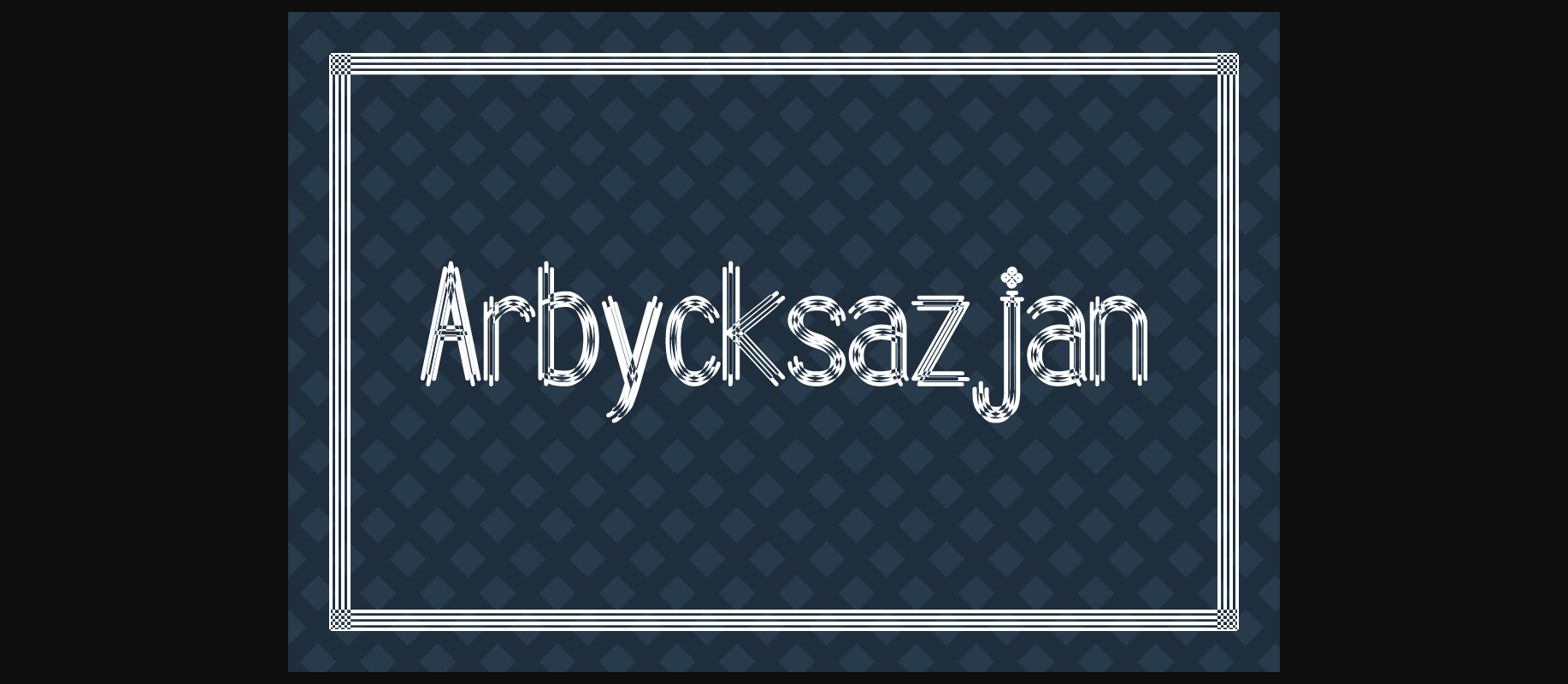
Arbycksazjan Font
About Arbycksazjan Font
Arbycksazjan is a decorative font, suitable for a wide range of uses in both digital and print applications. This font is highly detailed yet legible for use in smaller formats.